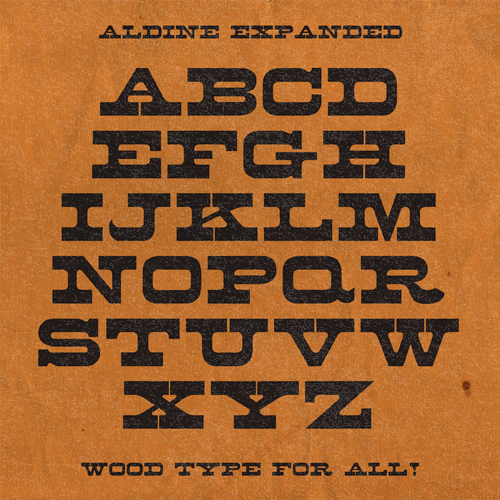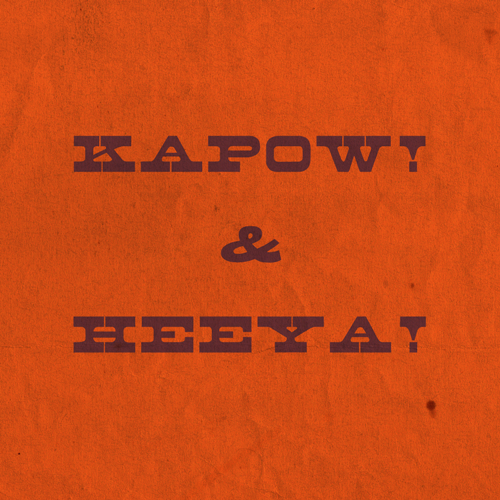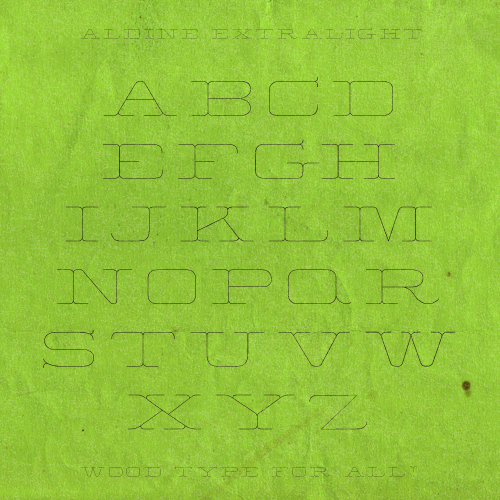
Aldine
Authentic 19th Century Wood Type
Created from original proofs of a 19th Century American Wood Type alphabet, Aldine Expanded was created and embellished by Javier Viramontes at the University of Texas, Austin.
Javier Viramontes
Slab Serif